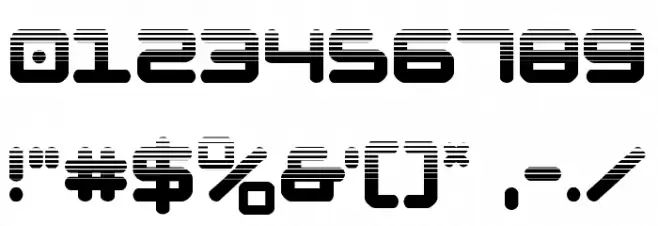
NGC 292 Halftone Font
NGC 292 Halftone Description
This font features a bold, futuristic design with a halftone effect that gives it a unique, digital appearance. The characters are constructed with a series of horizontal lines that create a sense of movement and depth. The uppercase and lowercase letters maintain a consistent style, with rounded edges and a geometric structure. The numerals and special characters follow the same design principles, ensuring a cohesive look across all glyphs. This font's distinct style makes it stand out, suitable for projects that require a modern and tech-savvy aesthetic.
A bold, futuristic font with a halftone effect and geometric design from Uncategorized fonts.
- Overall Style: Futuristic